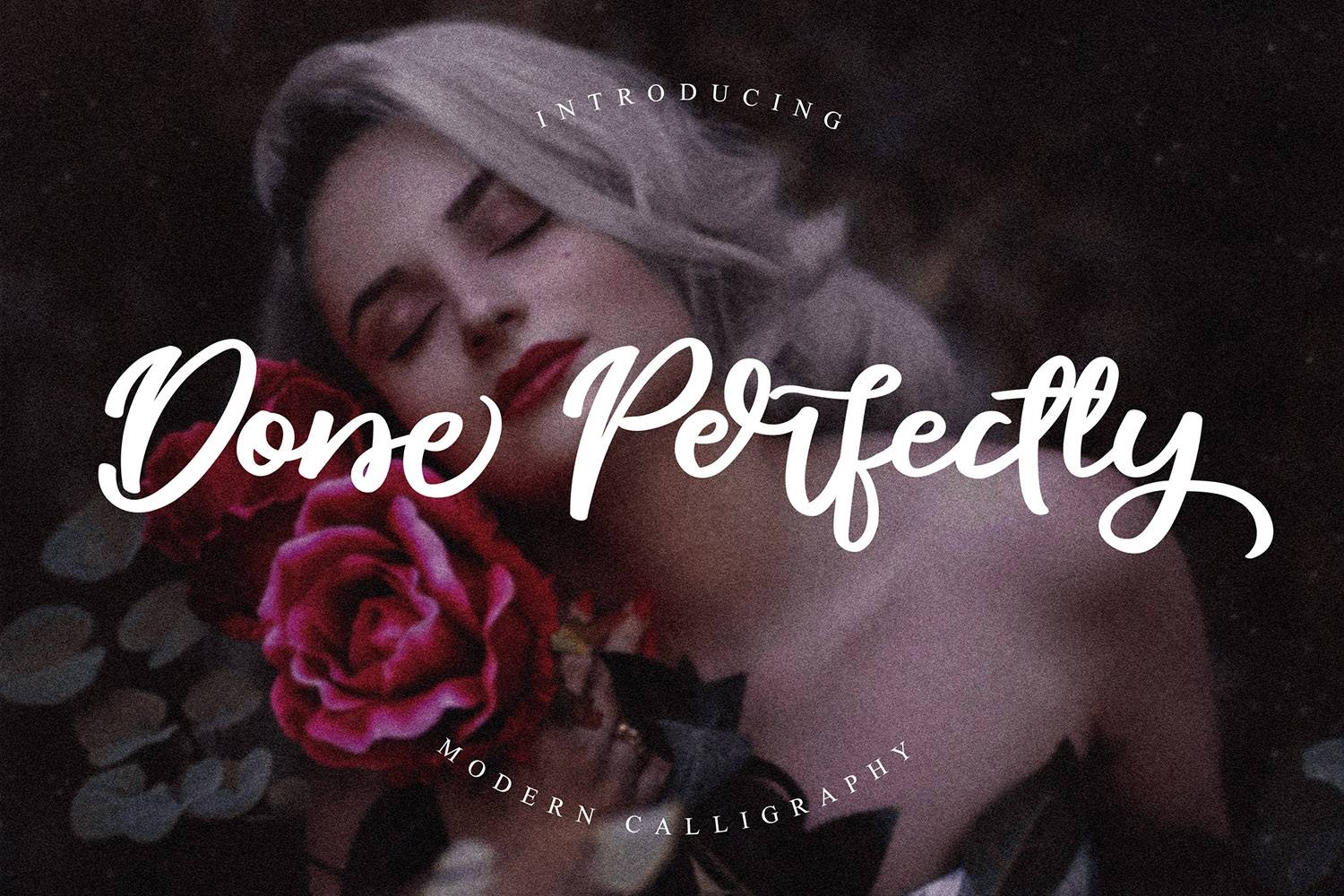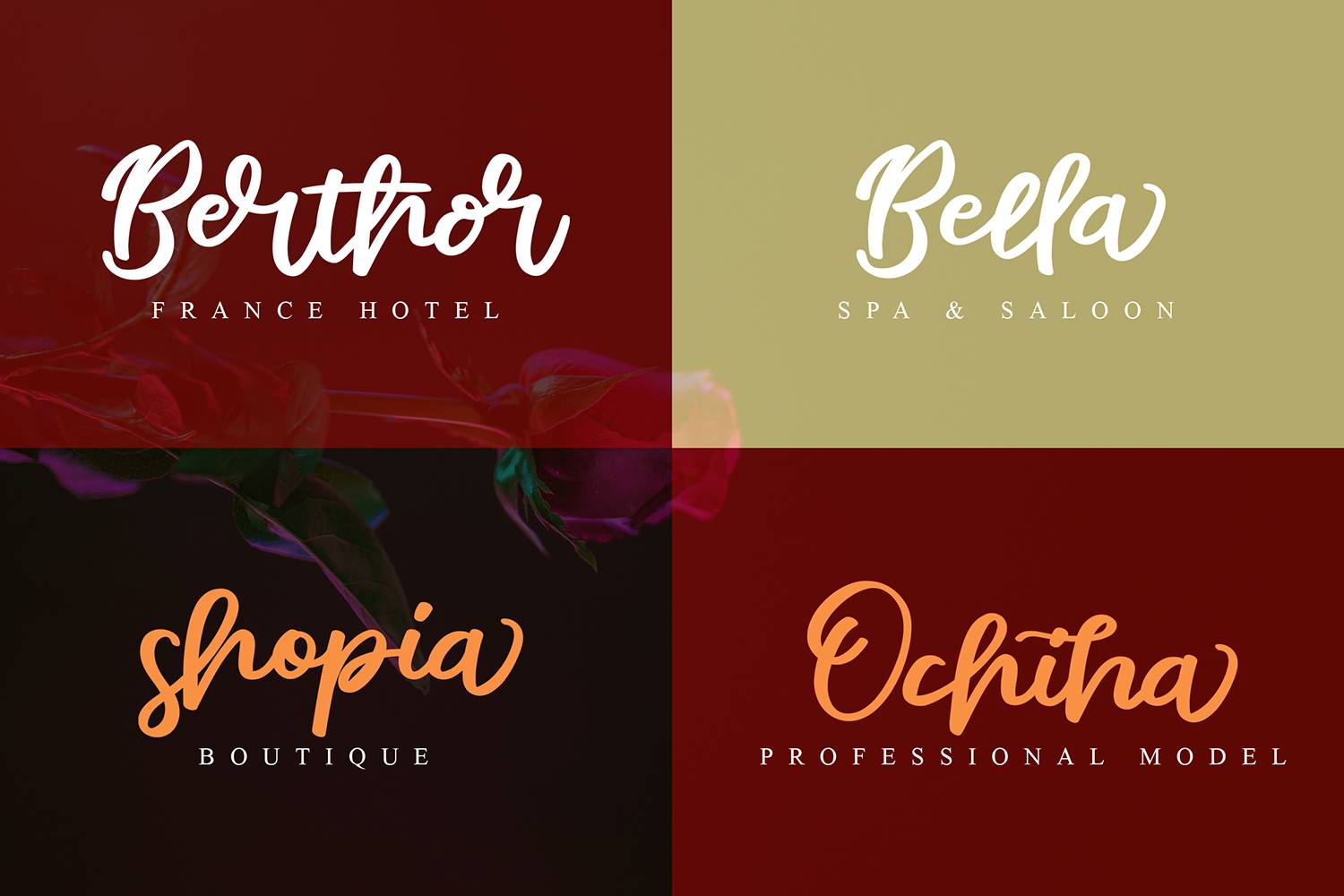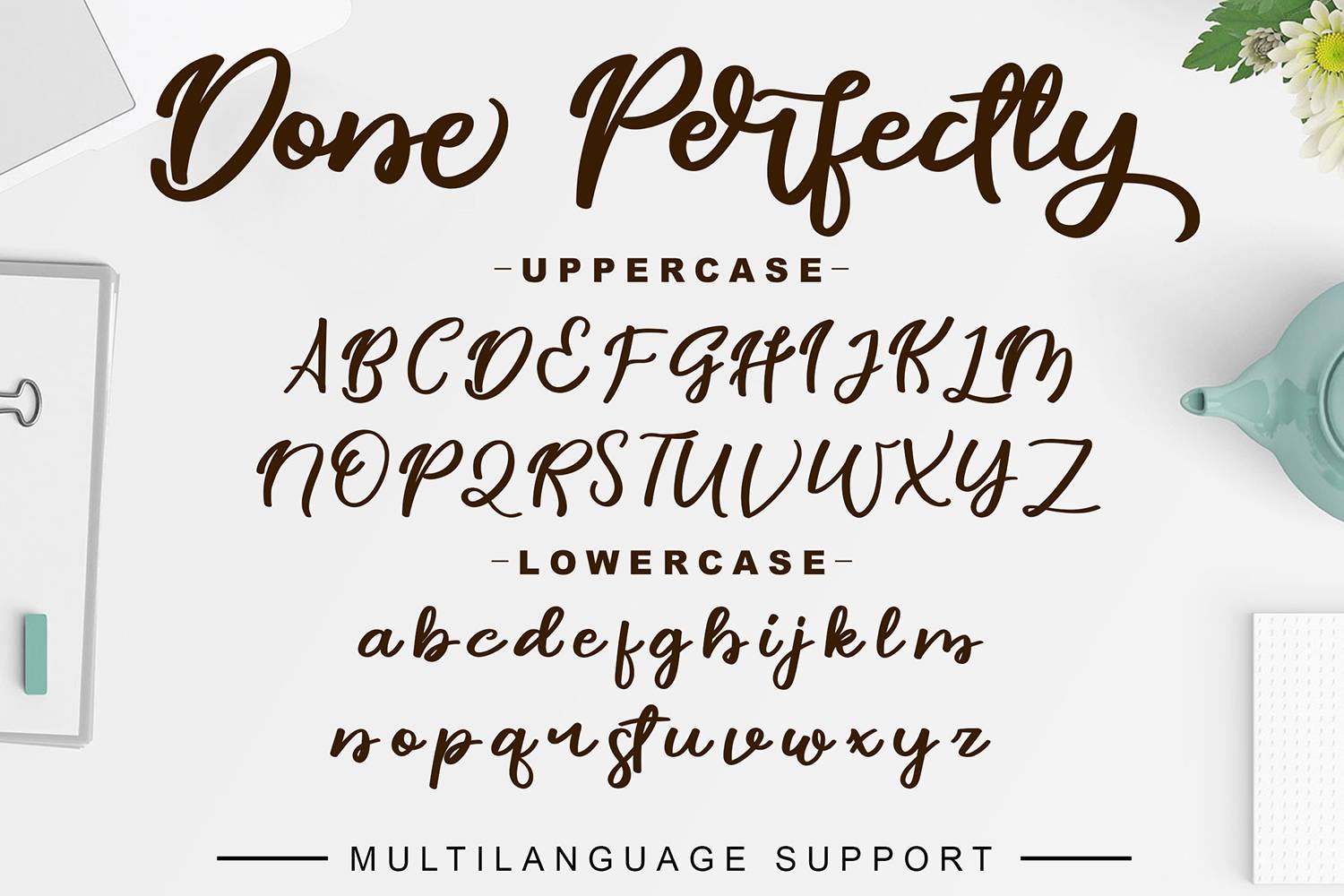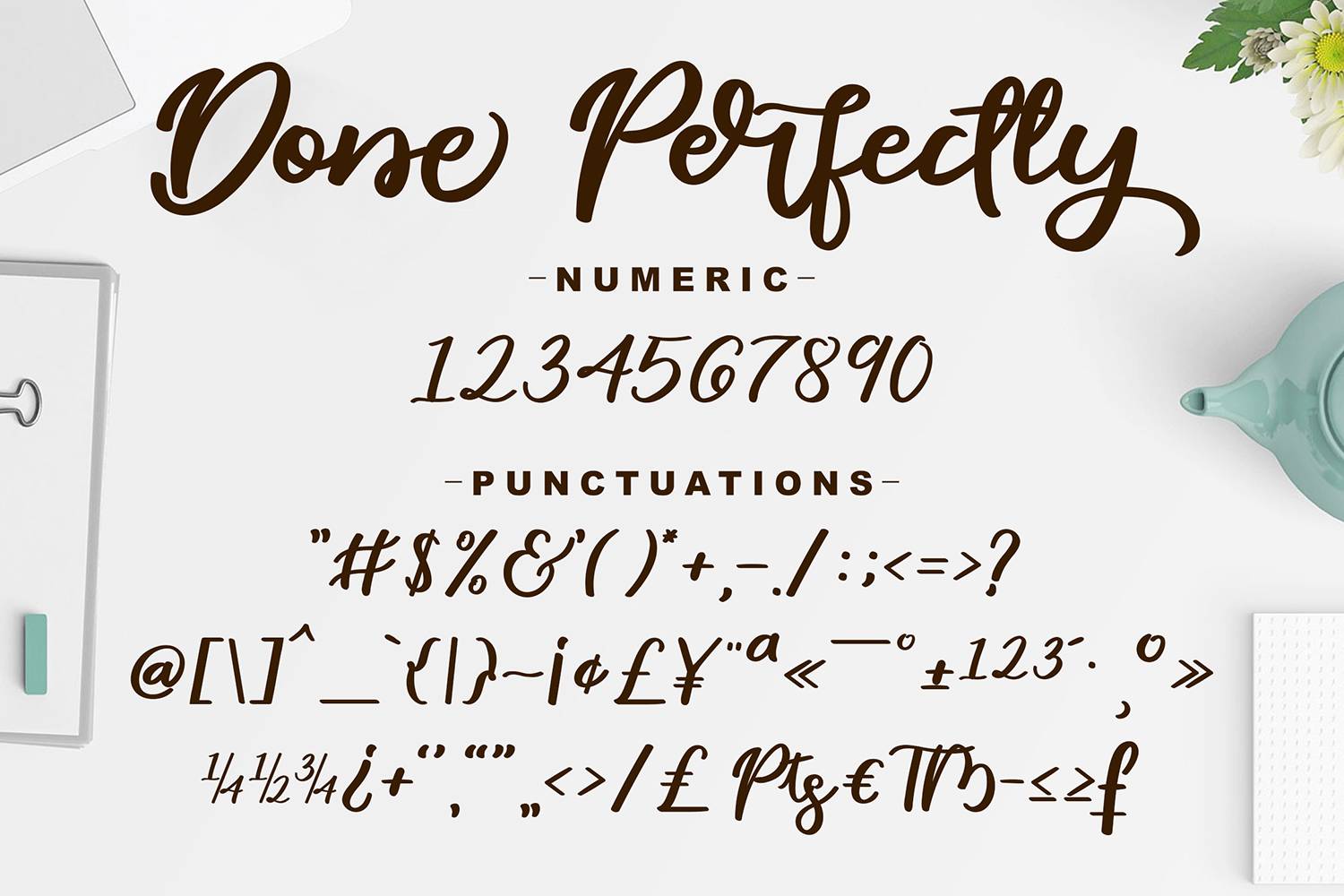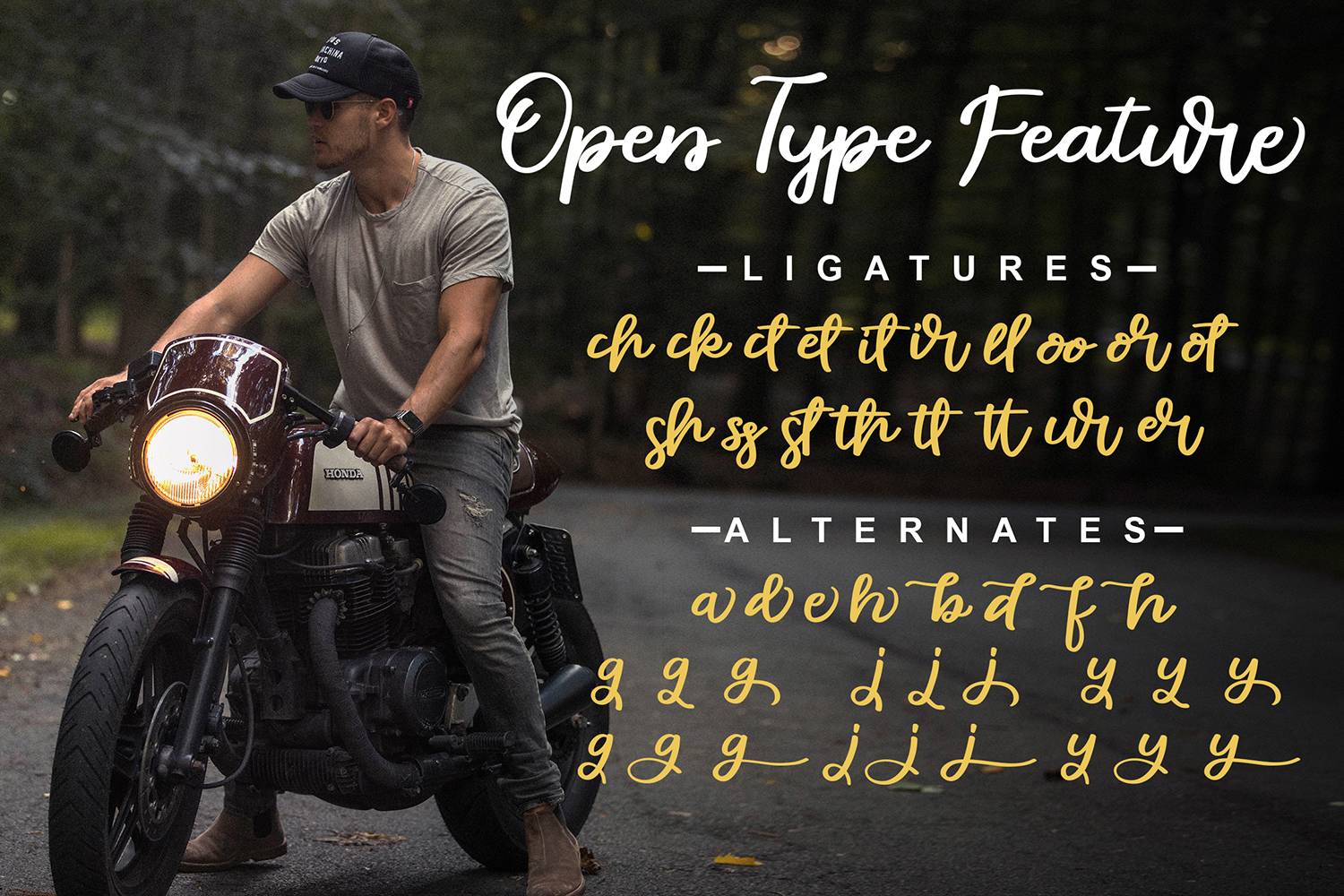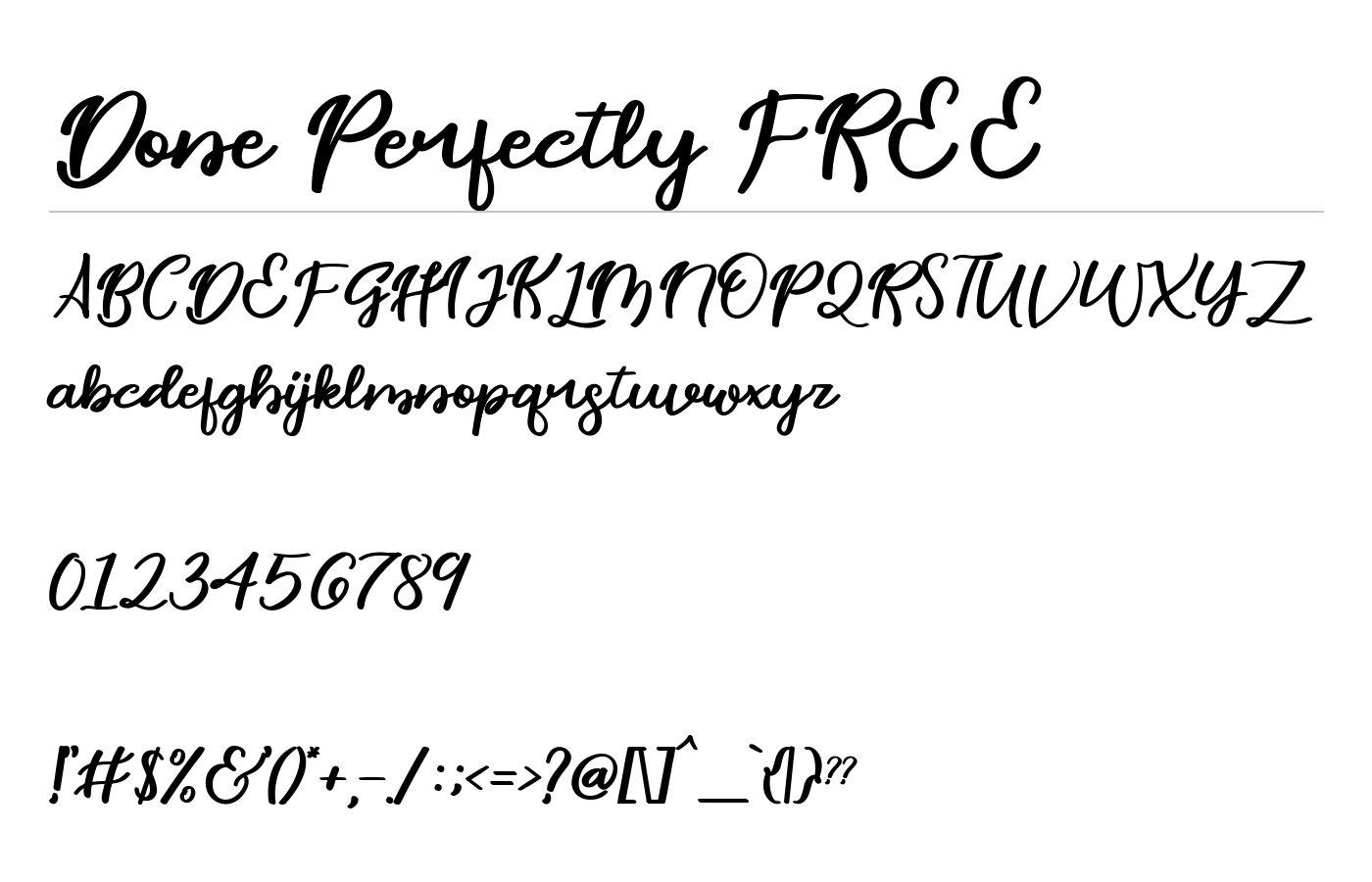
Done Perfectly is a lively script font with a smooth, handwritten feel that combines casual charm with elegant flow. Its moderately bold weight, moderate contrast, and playful letter shapes make it ideal for creative branding, invitations, and greeting cards where a friendly yet polished look is desired. This font works beautifully for headlines and decorative purposes due to its distinct personality and easy readability.
Done Perfectly Font
About Done Perfectly Font
| Font family | Done Perfectly Font |
| Designer | Muhammad Farhan Sholeh Ramadhika |